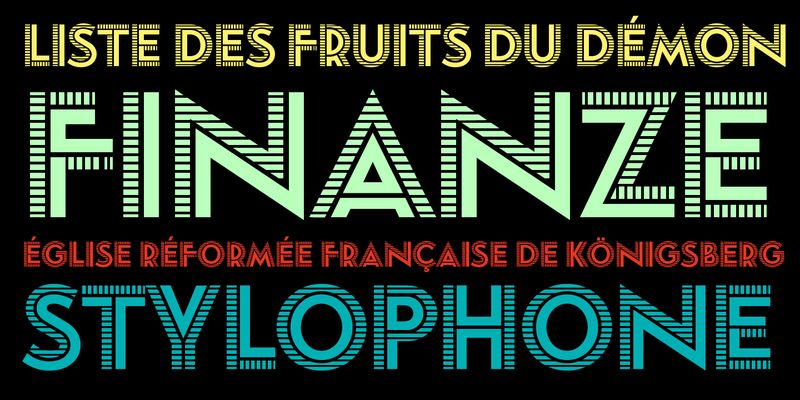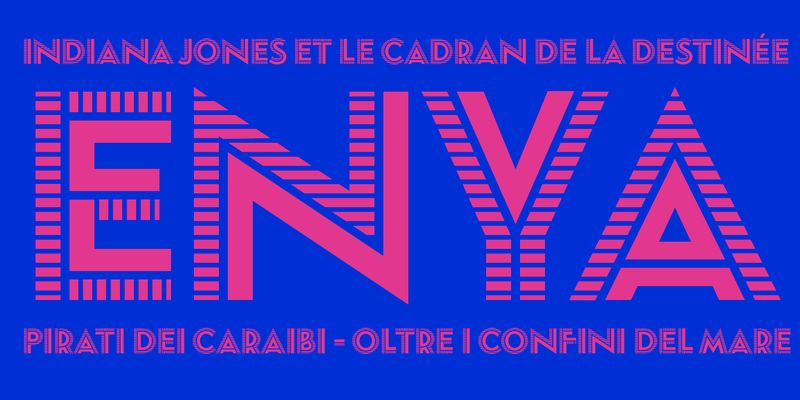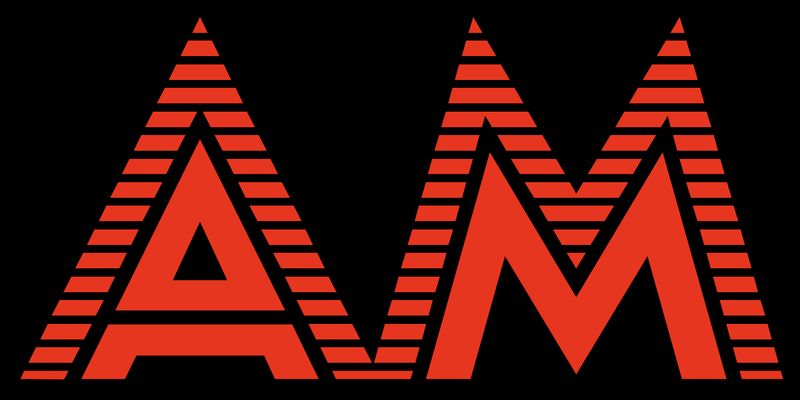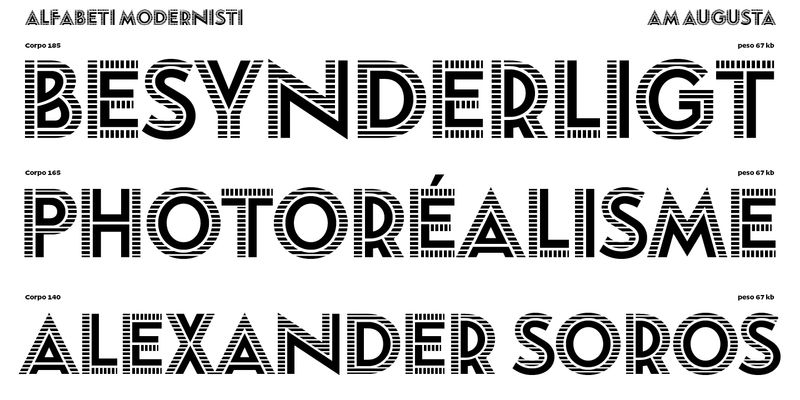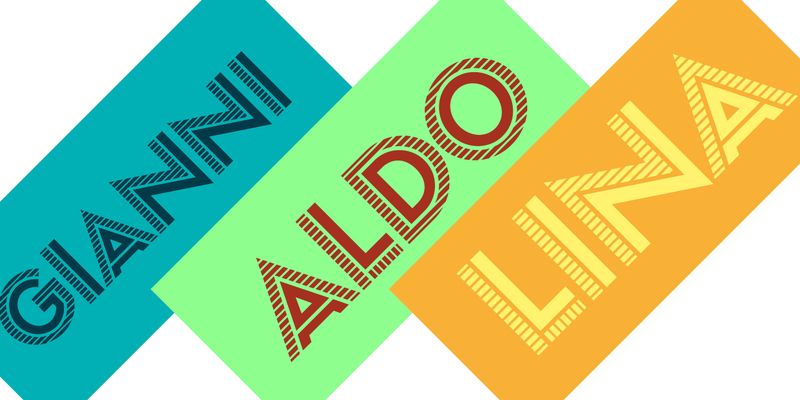
Augusta is an all-caps inline geometric typeface of rather complex construction. Each character has a solid and a shaded side, the latter consisting of a grid of thin parallel lines. It is a prime example of modernist type design, albeit with some letterforms with Art Nouveau traits (see for instance B, F and an alternate round E which can be activated via OpenType features); in fact, Art Nouveau types lasted much longer in Italy than elsewhere and they were still fashionable in the late 1930s.
Augusta was a metal type produced by the Fonderia Tipografica Meridionale Armando De Luca (Naples), a family-run type foundry about which very little information is available. It was founded in 1896 and ceased activity in the 1970s or early 1980s, when the De Luca family switched to the manufacture of printing inks. Their greatest success seems to have been Napoli, a sanserif very similar to Schriftguss’s Super-Grotesk.
Released in six sizes, from 20 to 72 points, Augusta shares a family likeness with some German inline typefaces which were popular in the late 1920s. Nonetheless, as far as we can tell, Augusta is an original design.
In the words of the designer Riccardo Olocco ‘the AM Augusta digital revival is faithful to the original even though many small details have been improved to make the grid construction of the letters consistent throughout the character set. In conformity with modern taste, letter spacing has also been improved and is now much tighter than the original. Some figures have been modified, because their original shapes did not fit well with the others.’
OpenType Features:
ss01 – Round E